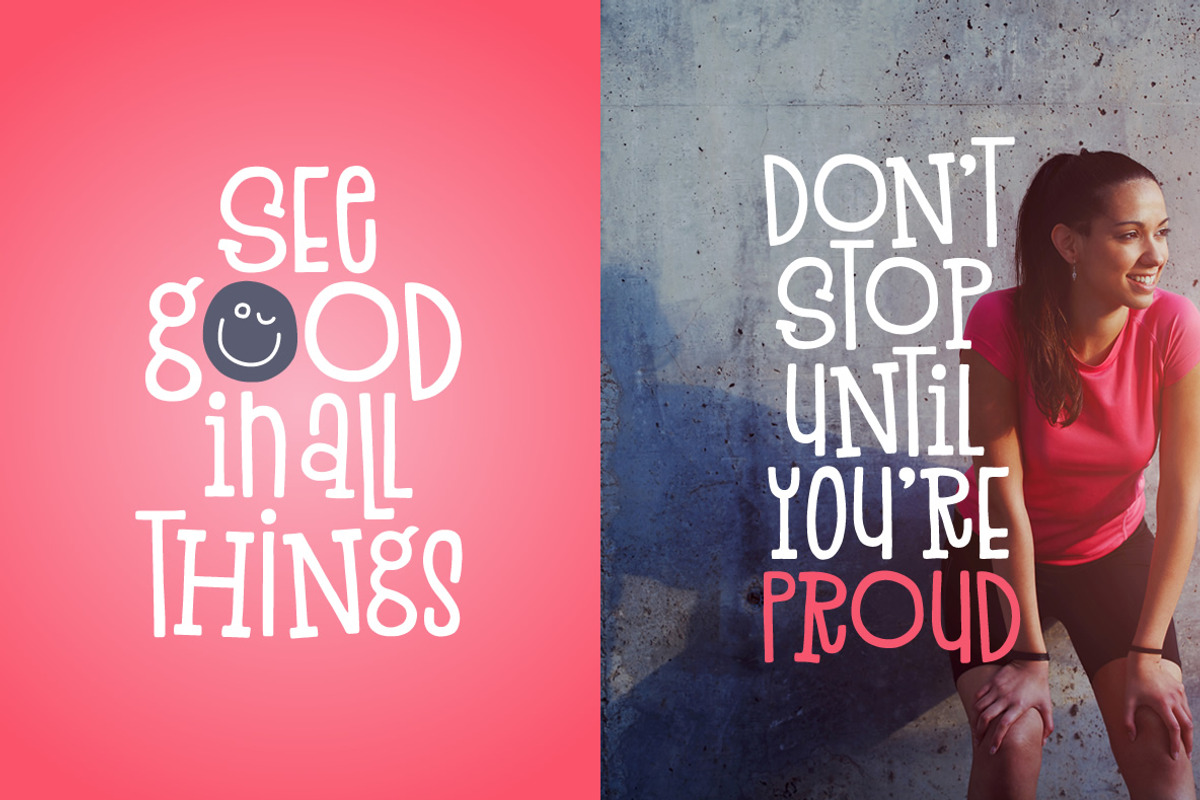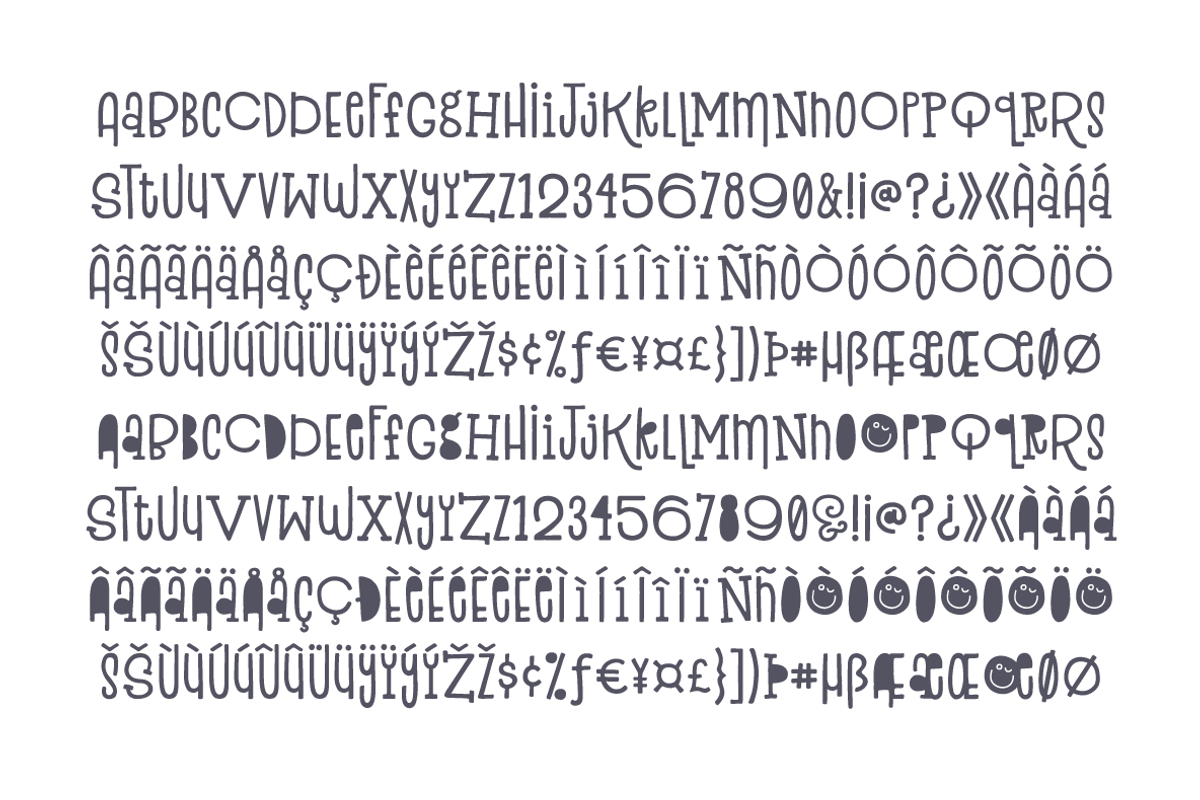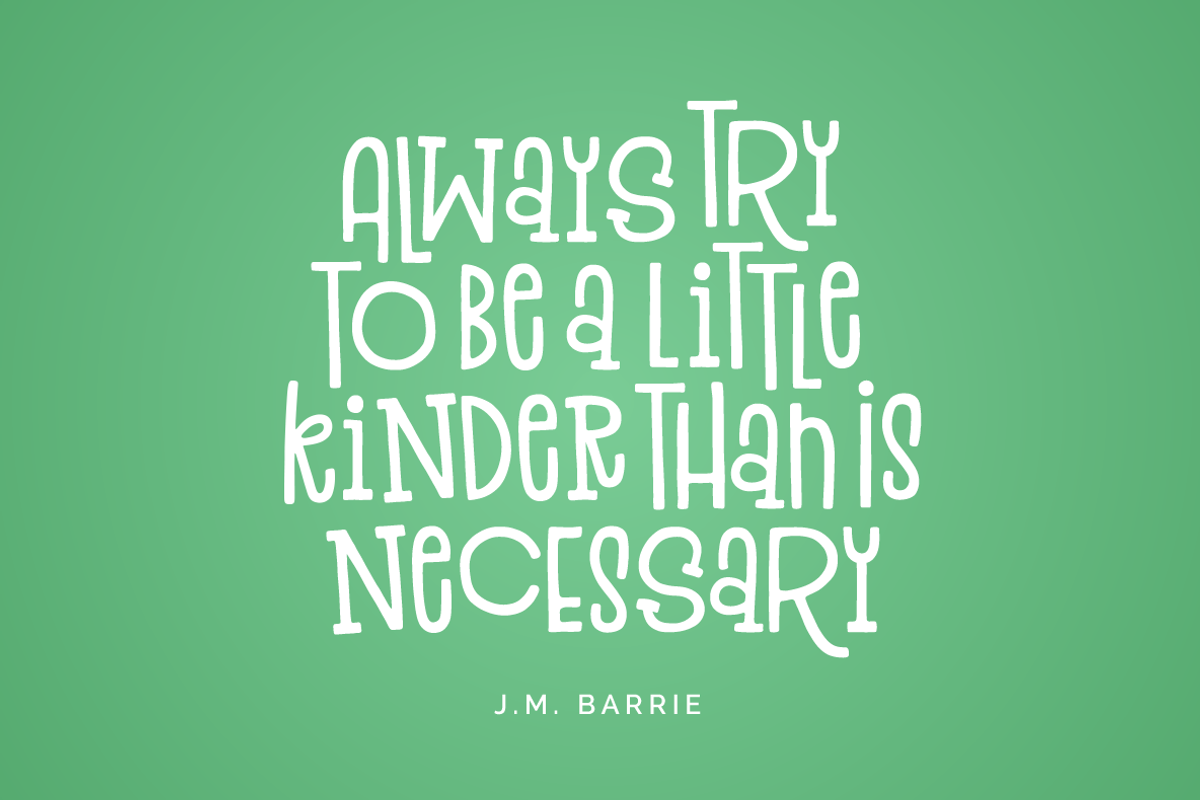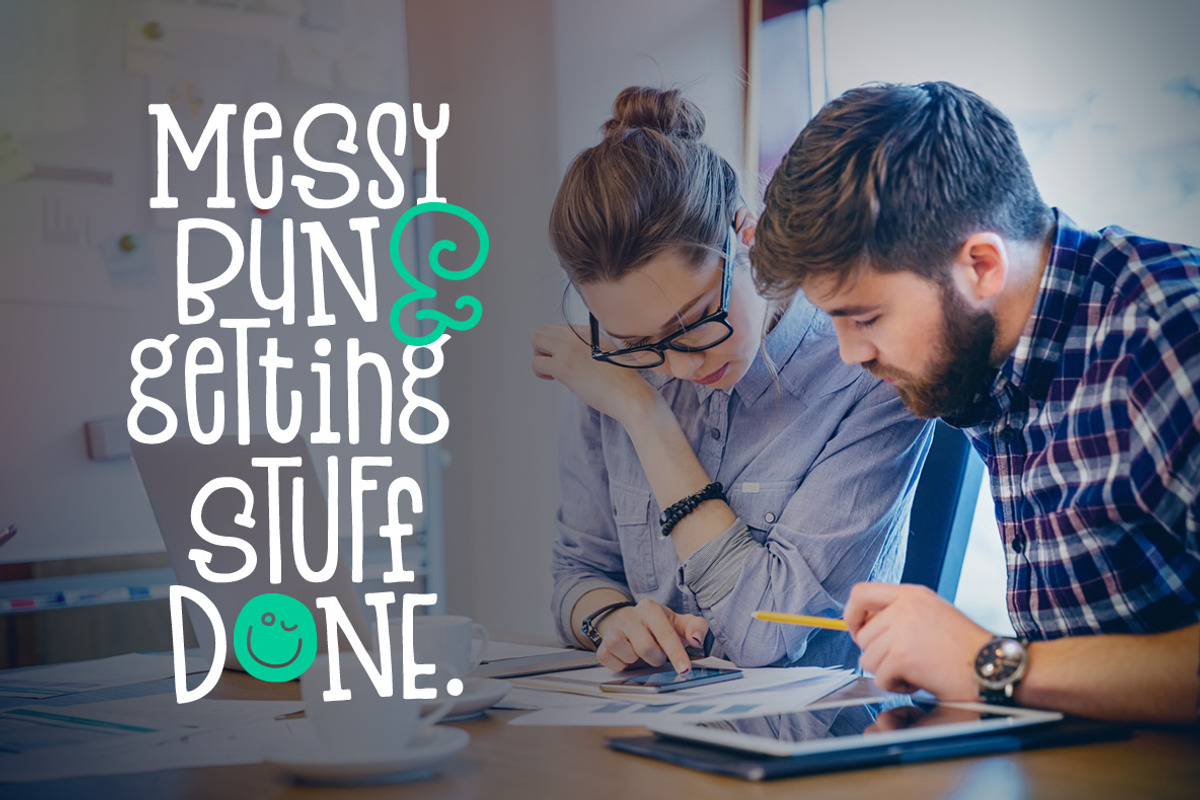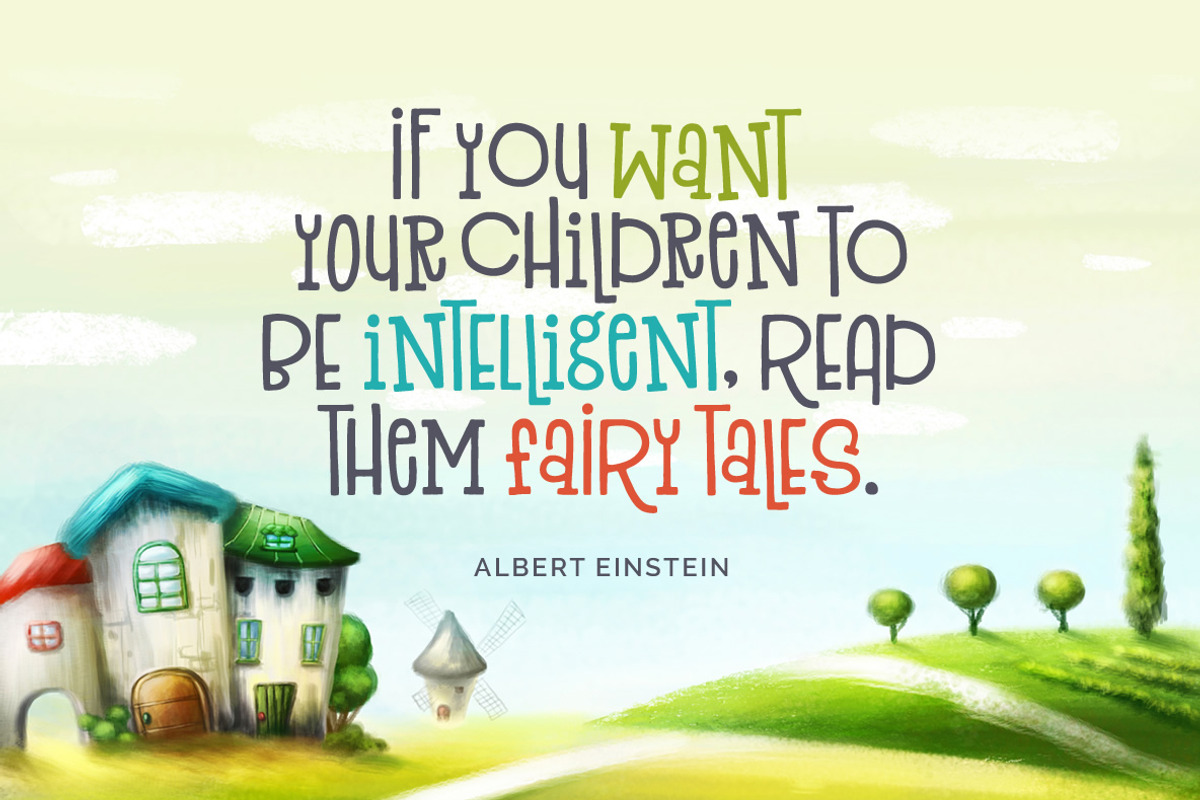
Anything Goes Font
Anything Goes is a charming font with a quirky, hand-drawn style. It is perfect for logos, children's books, package design, typographic posters, etc. As the name says, Anything Goes!
Anything Goes Font by Denise Chandler fits naturally into Branding, posters, packaging, typography.